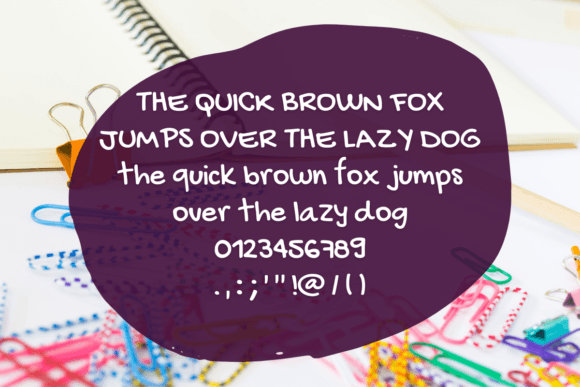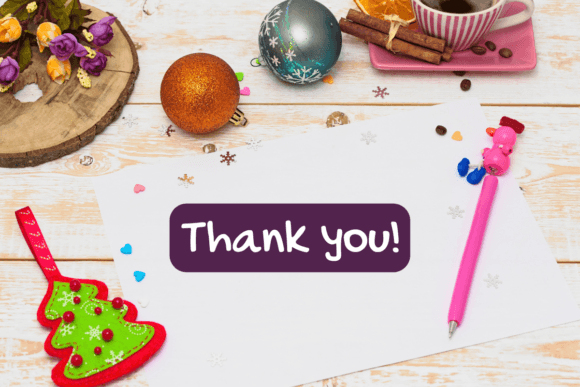
Introduction to Messy Hand Font
Have you ever found yourself doodling in a notebook, letting your pen wander across the page as you bring your creative ideas to life? For many designers, this is the spark that sets off a chain reaction of inspiration – a moment of pure creativity where the possibilities seem endless. And for those who crave a little more of that carefree, handwritten charm in their designs, the Messy Hand Font is about to become their new best friend.
This playful, handwritten font is the perfect addition to any creative project, offering a high-quality, informal look that’s sure to make your designs stand out. Whether you’re working on a project that requires a transparent background or just want to add a personal touch to your design resource, the Messy Hand Font is a valuable tool in your creative arsenal. And the best part? It’s available for a free download, making it accessible to designers of all levels.
Key Features of Messy Hand Font
- Unique Hand-Drawn Design: The Messy Hand Font is a high-quality, hand-drawn design resource perfect for creative projects that require a personal touch.
- Perfect for Hand-Drawn Text: The Messy Hand Font is ideal for creating hand-drawn text and is perfect for designers who want to add a personal touch to their creative projects.
- Great for Logos and Branding: The font’s unique design makes it an excellent choice for logos and branding projects where a personal touch is required.
Honest Review: Messy Hand Font
I recently stumbled upon the Messy Hand Font, and I have to say, it’s been a game-changer for my creative projects. This font is perfect for designers who want to add a touch of imperfection to their designs.
- High-quality design: The Messy Hand Font is beautifully crafted, with intricate details that make it perfect for hand-lettering and custom typography.
- Limited style options: While the font itself is stunning, the style options are limited, which may not be suitable for designers who want more versatility.
- Not suitable for formal designs: Due to its imperfect nature, the Messy Hand Font may not be the best choice for formal designs or corporate branding.
Overall, I’m impressed with the Messy Hand Font. It’s a fantastic design resource that can add a unique touch to your creative projects. Just be mindful of its limitations, and you’ll be golden.
Messy Hand Font
The Messy Hand Font is a unique design resource perfect for creative projects that require a high-quality, hand-written look. This free download offers a transparent background, making it easy to integrate into your designs.
Tips for Getting the Most Out of Messy Hand Font
To get the most out of the Messy Hand Font, experiment with different font sizes, colors, and combinations with other design elements. You can also use the font in conjunction with images and other design resources to create a visually appealing design.
The Messy Hand Font is perfect for a variety of creative projects, including invitations, posters, and social media graphics. It’s also great for use in educational materials, such as worksheets and presentations.